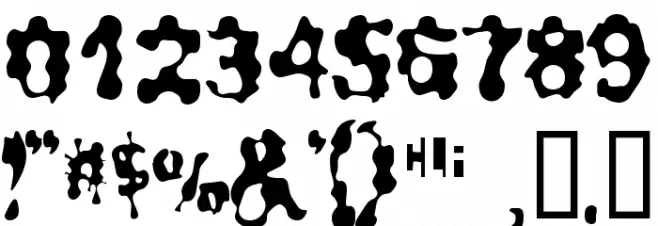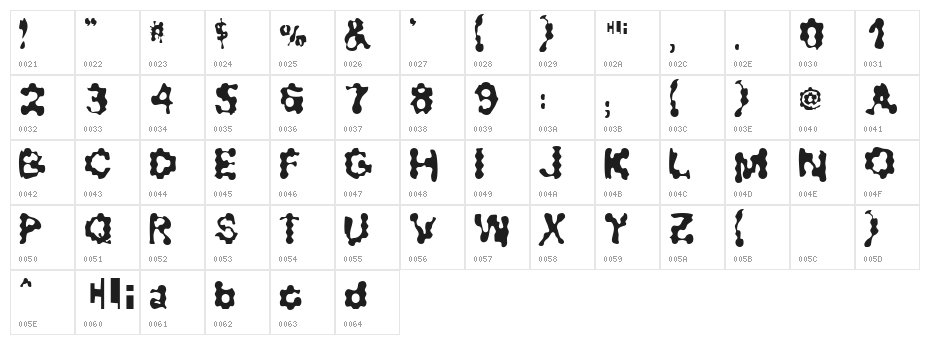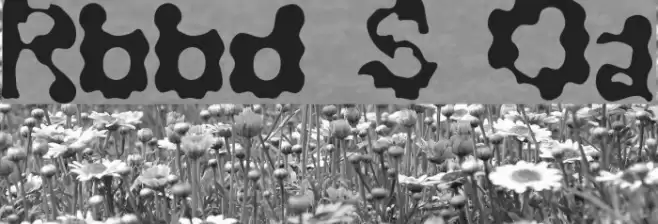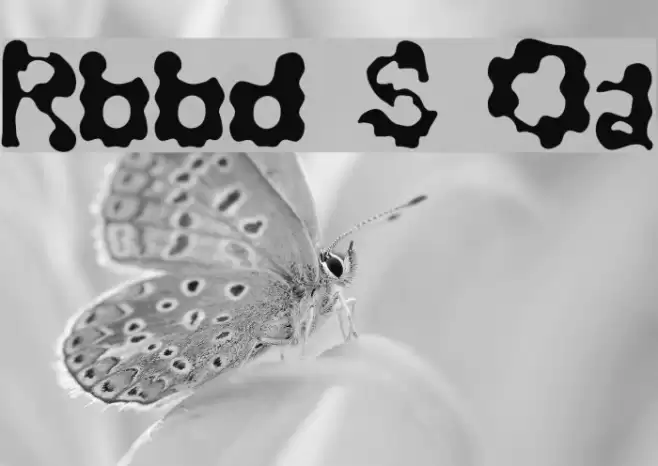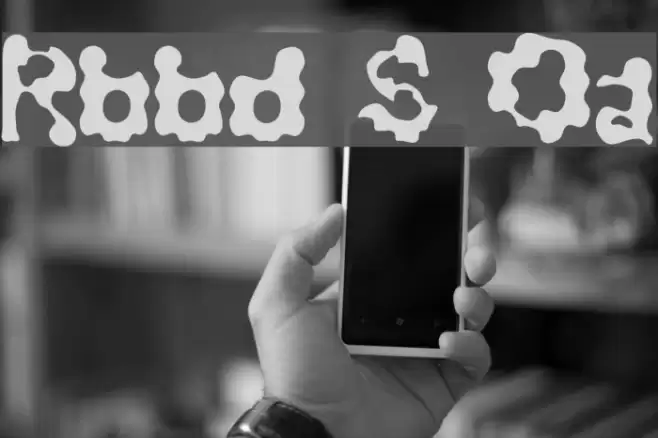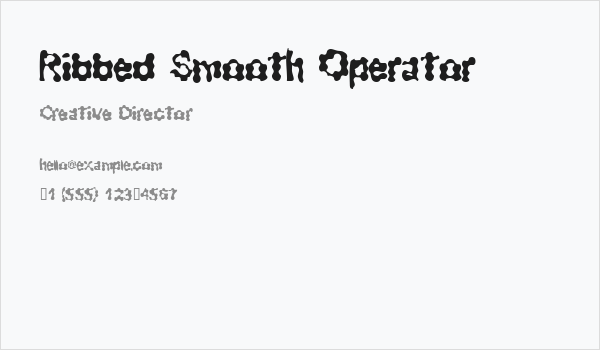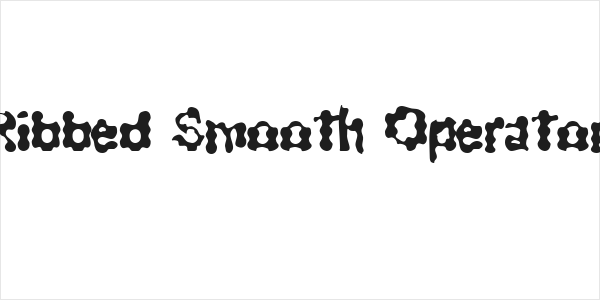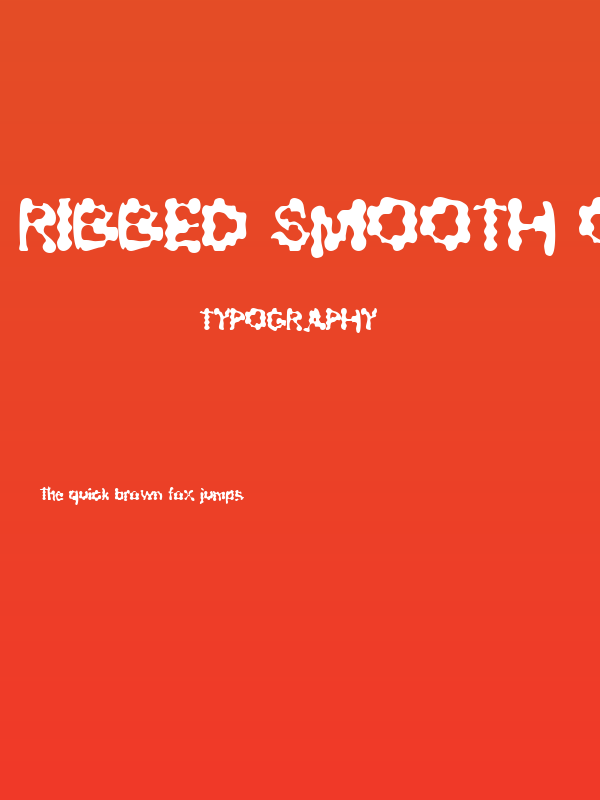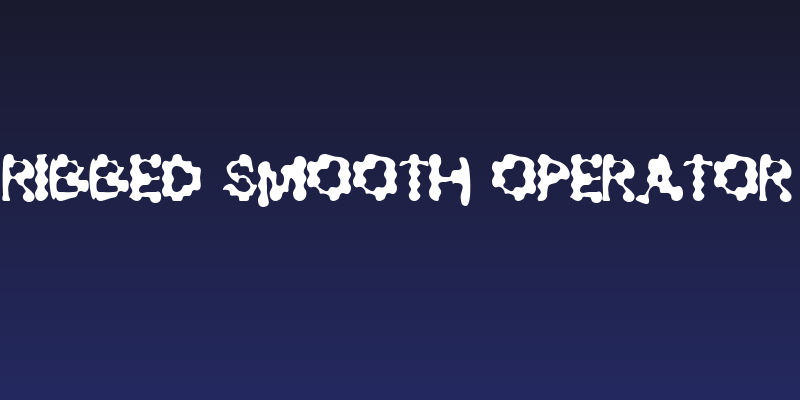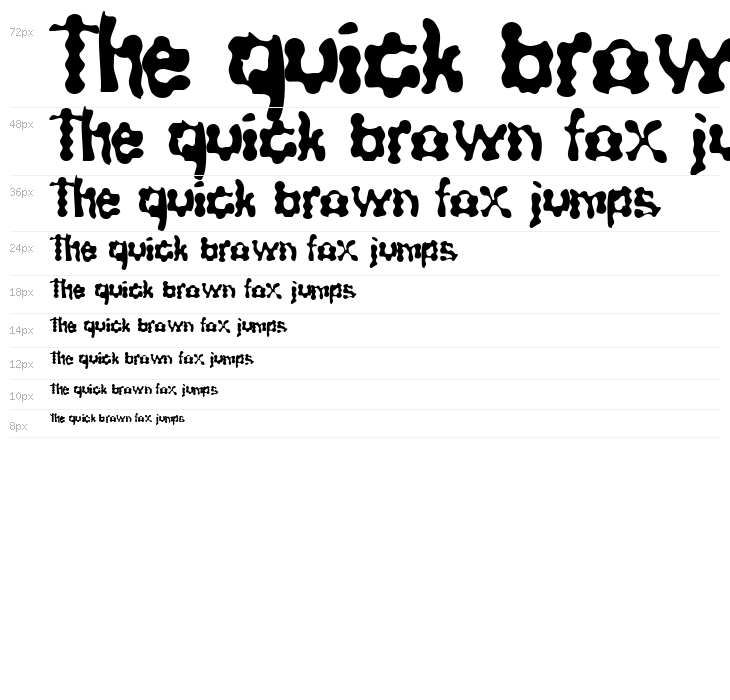
Ribbed Smooth Operator Font
Ribbed Smooth Operator Description
This font features a highly decorative and unique style, characterized by its organic, fluid shapes that resemble dripping or melting forms. The letters have a playful and dynamic appearance, with irregular edges and varying stroke thicknesses that create a sense of movement. The uppercase and lowercase letters maintain a consistent theme, while the numerals and special characters integrate seamlessly with the overall design. This font's bold and artistic nature makes it stand out, offering a visually striking option for creative projects.